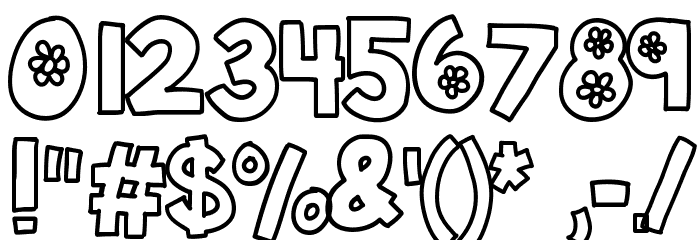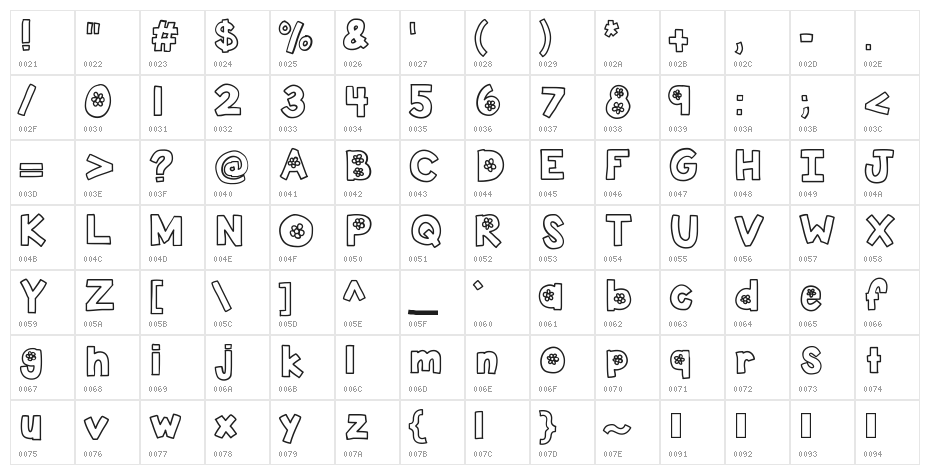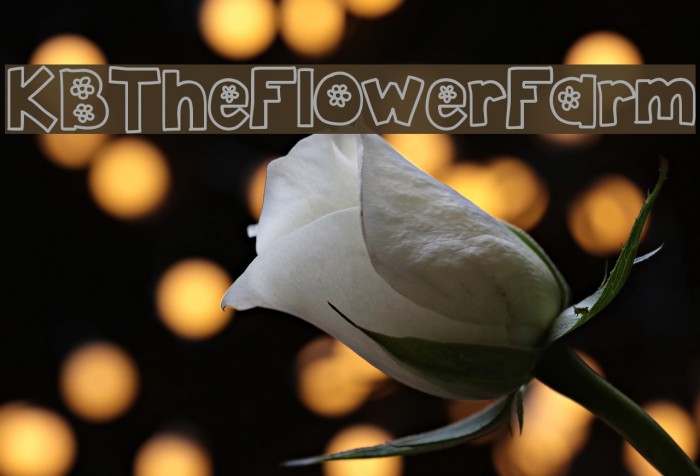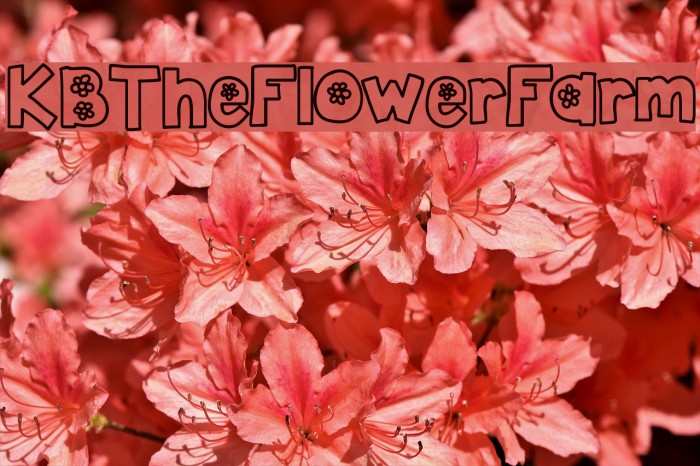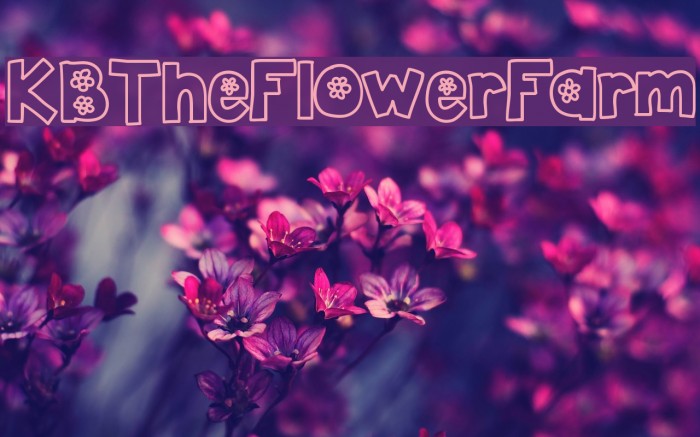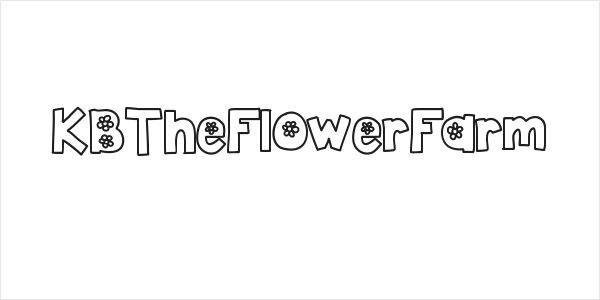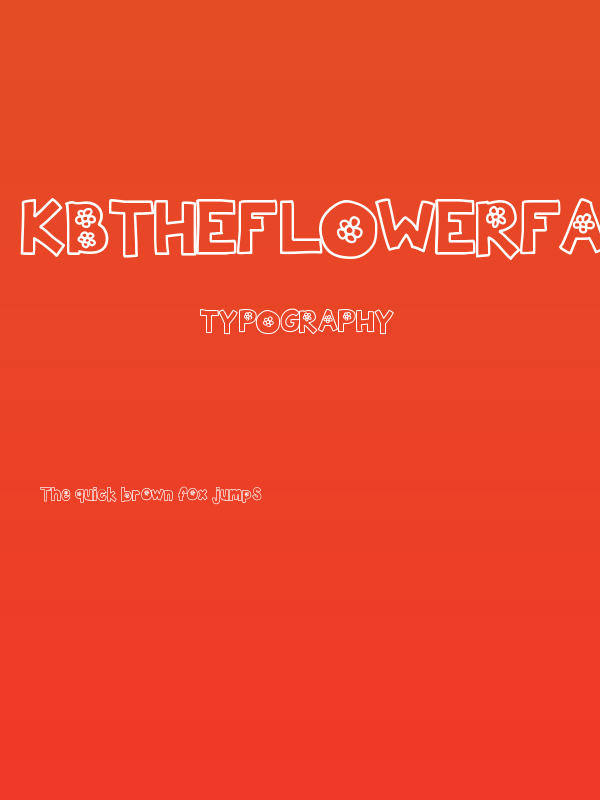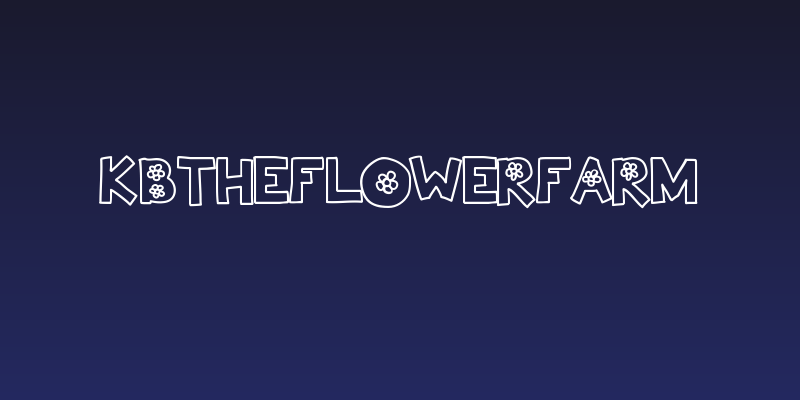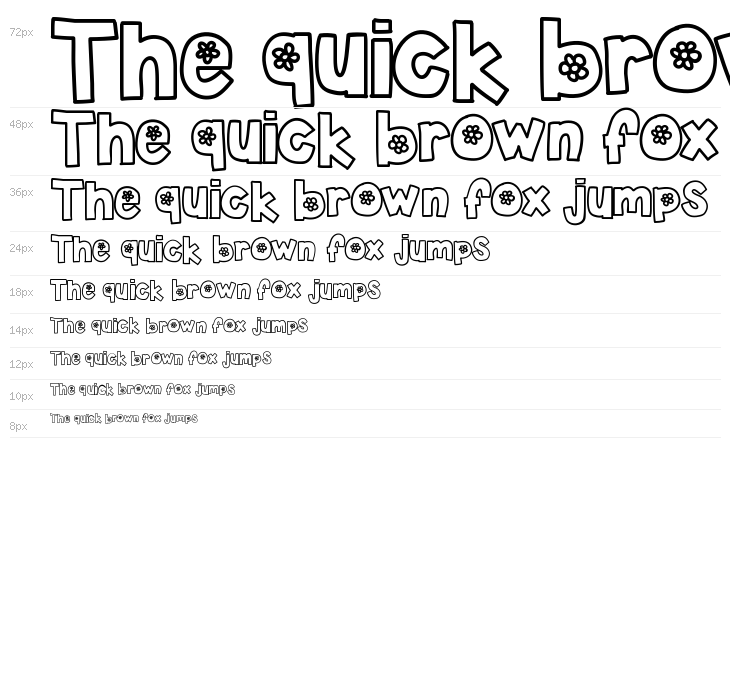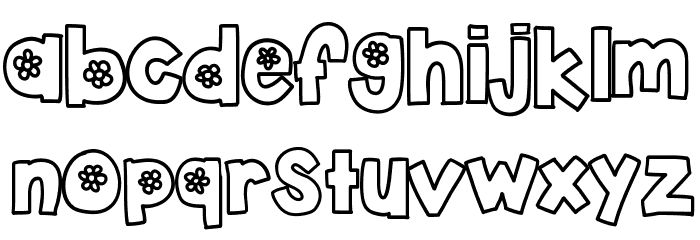
KBTheFlowerFarm Font
KBTheFlowerFarm Description
This playful and decorative font features bold, outlined characters with whimsical flower motifs embedded within some of the letters. The design is both eye-catching and fun, making it ideal for projects that require a lighthearted and creative touch. The uppercase and lowercase letters maintain a consistent style, with rounded edges and a uniform thickness that enhances readability. Numbers and special characters are included, each maintaining the same playful aesthetic. The font's unique style is perfect for children's projects, party invitations, or any design that seeks to convey joy and creativity.
| Proposed Projects | Ideal for children's books, party invitations, playful branding, and creative posters. |